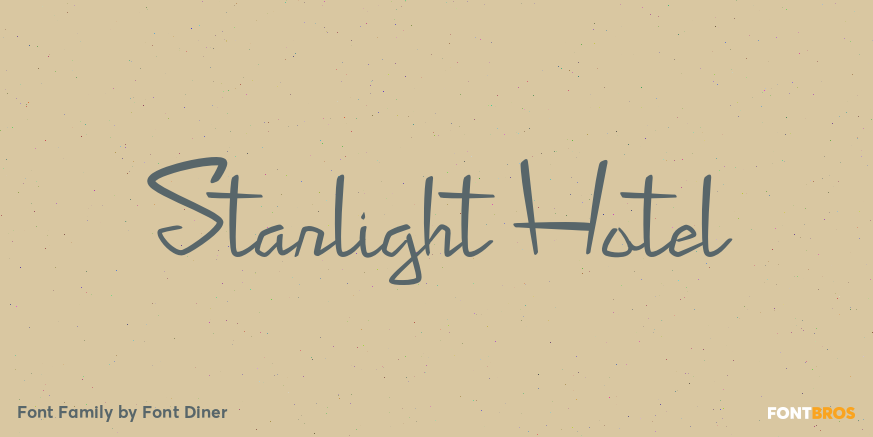
HomeFont BrosRetro (1936-1965)Starlight Hotel Retro (1936-1965)Scripts: Casual Starlight Hotel FacebookXPinterestWhatsApp 1 of 1 About Starlight Hotel Just over the horizon in the Colorado hills, the Starlight Hotel lights the skyline with its neon buzzing constellations! Enjoy this space age angular script face!  DOWNLOAD ON FONT BROSThis font is sold and delivered by Font Bros. Font Canyon may earn a commission if you buy through this link. People also explored Sunflower Font Poem Script Hello Love Font Lottekas Font Jonathan Smith Font Andalusia Font Ellise Naomy Script Font Brandine Font Starlote Font 378 0 TagsStarlight Hotel Font Previous articleJubieNext articleTerra Ignota LEAVE A REPLY Cancel reply Comment: Please enter your comment! Name:* Please enter your name here Email:* You have entered an incorrect email address! Please enter your email address here Website: Save my name, email, and website in this browser for the next time I comment. Personal Use Free Pumpkins Candles Personal Use Free Read more about this font Cleopatra Font Personal Use Free Read more about this font Reztop Personal Use Free Read more about this font Rocketto Personal Use Free Read more about this font BLOG How to Install and Use Fonts on Windows, macOS, and Web Projects How to Install and Use Fonts on Windows, macOS, and Web Projects Fonts are a crucial part of design and branding. Whether you’re designing a... The 10 Best Handwriting Fonts to Add Personality to Your Designs To increase your work productivity, choose the most readable fonts. How to Cut Any Font on Cricut: Convert a Font to SVG (Free)